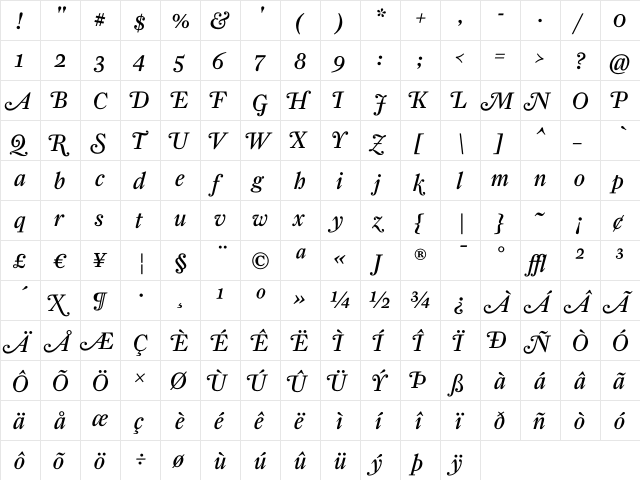
FarnhamDisplay-RegItalSwashAlt Regular
Design Context for FarnhamDisplay-RegItalSwashAlt Typeface
FarnhamDisplay-RegItalSwashAlt flows with the natural rhythm of handwritten lettering, making it ideal for designs that call for warmth and personal expression.
Font Pairing: Combine FarnhamDisplay-RegItalSwashAlt with a simple geometric sans for maximum contrast — the tension between flowing curves and clean structure is a classic typographic pairing.
Pro Tip: Use FarnhamDisplay-RegItalSwashAlt for short runs of text — names, titles, or taglines. Extended body copy in script faces tires the eye quickly.